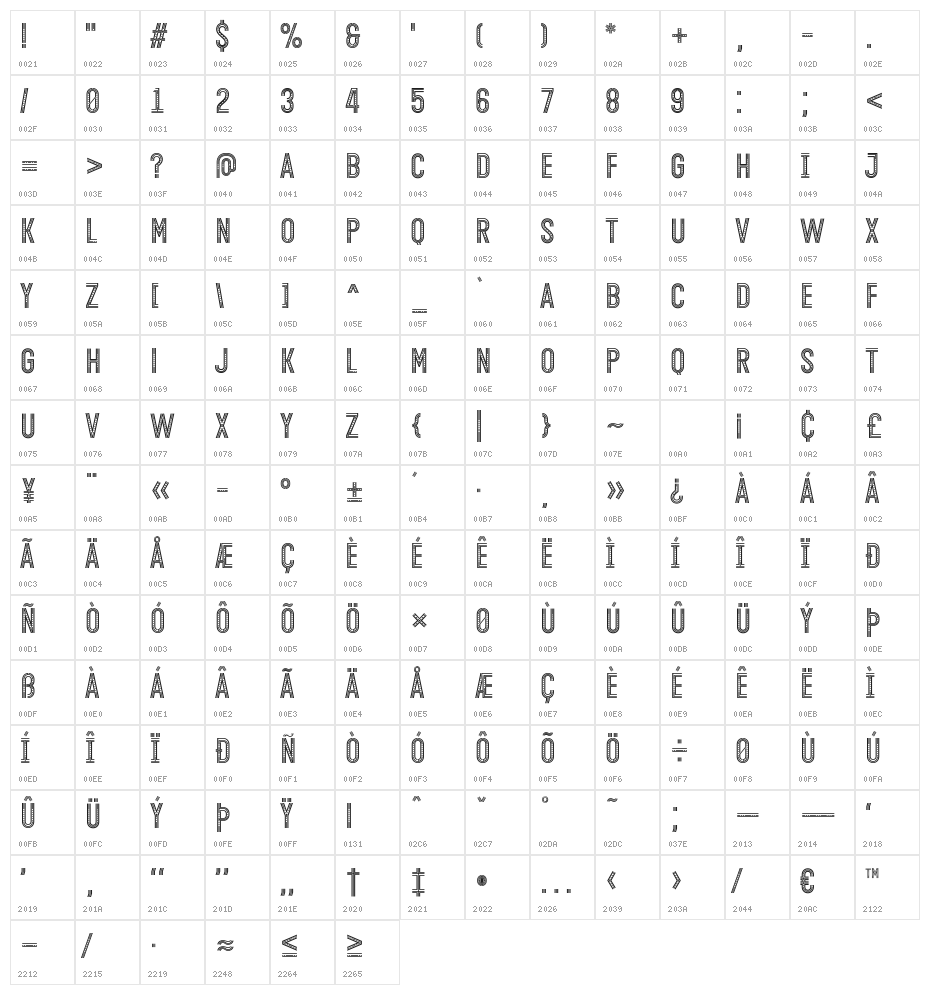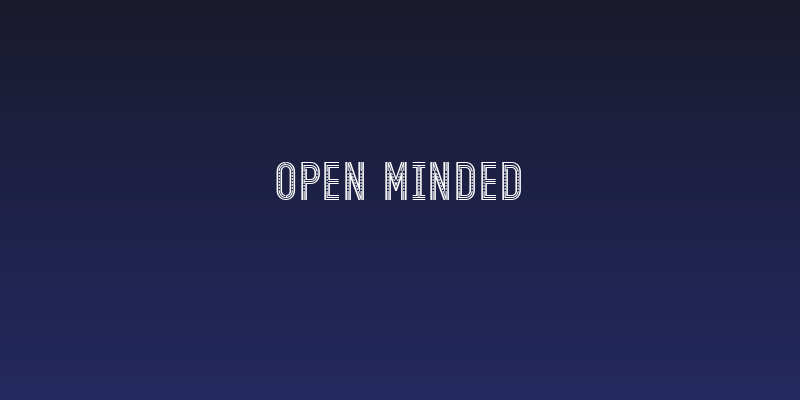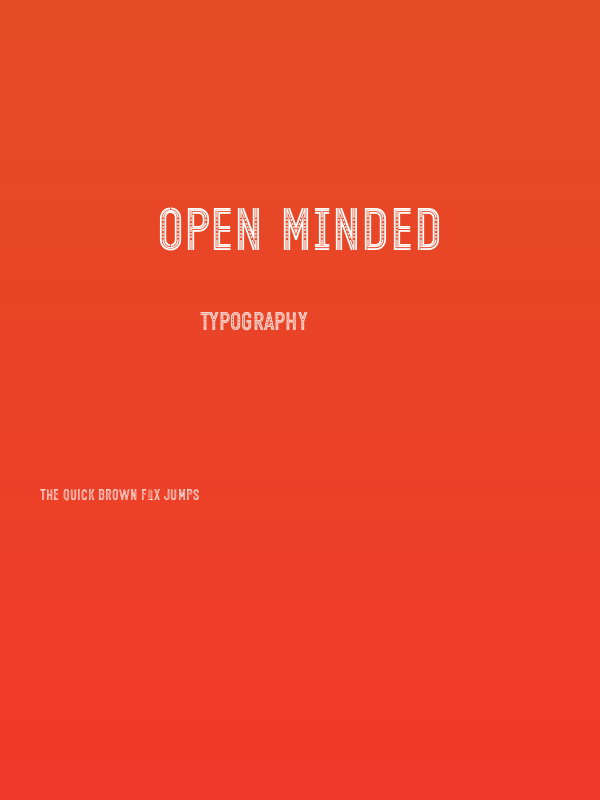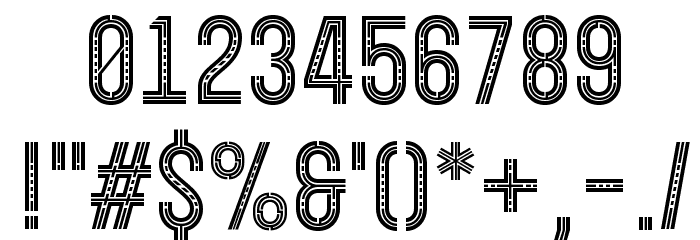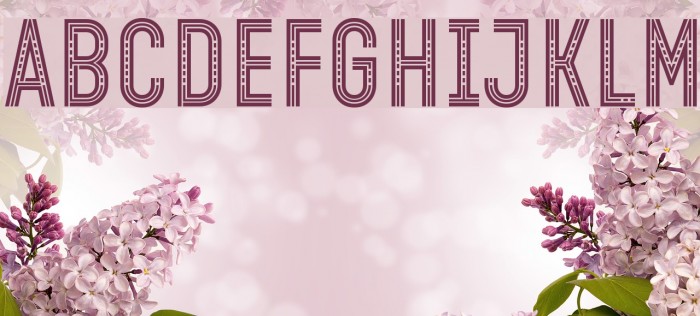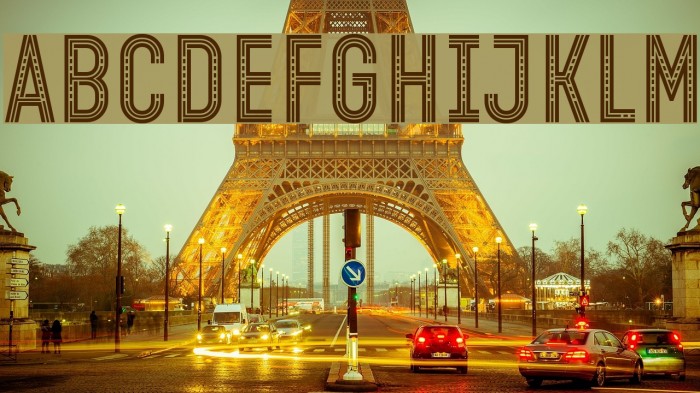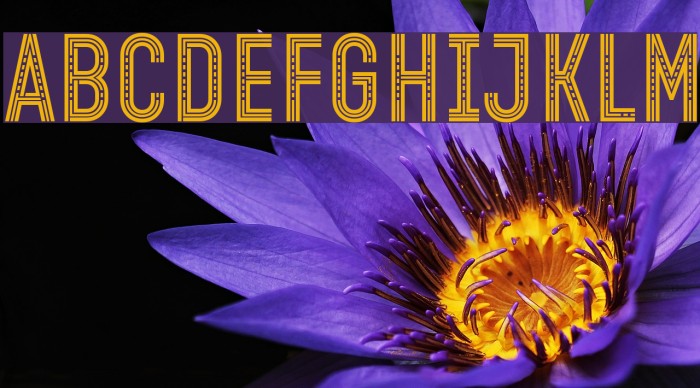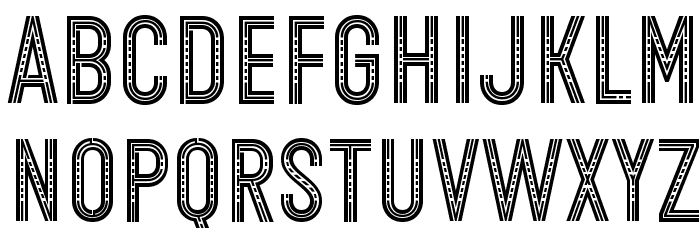
Open Minded Font
Open Minded Description
This font features a bold, decorative style with a unique double-line design that gives it a striking appearance. Each character is outlined with a series of parallel lines, creating a sense of depth and dimension. The uppercase and lowercase letters maintain a consistent width, contributing to a uniform look. The numerals and special characters follow the same design principles, ensuring cohesion across all elements. This font's geometric structure and clean lines make it highly legible while still being visually interesting.
| Proposed Projects | Ideal for use in posters, headlines, branding, and any project requiring a bold, eye-catching typeface. |